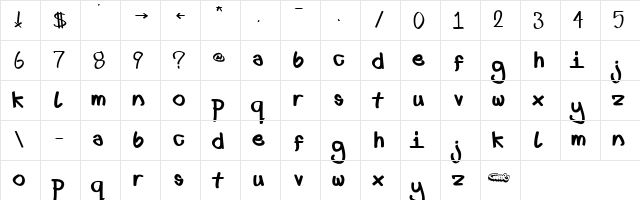
First font lower fat Regular
| Foundry | Craze One |
| Designer | Craze One |
Design Context for First font lower fat Typeface
First font lower fat is a composed and adaptable typeface that performs quietly and consistently across a wide range of design contexts.